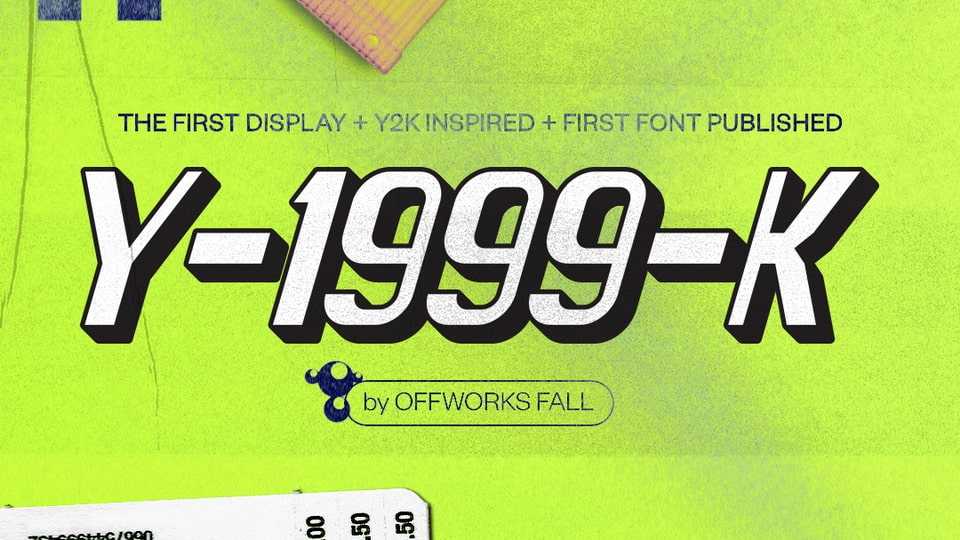
Download Y-1999-K font, the Y2K-inspired typeface that brings you to the future. Y-1999-K designed after many retro futuristic Japanese PS1 Game such as Jet Set Radio and the iconic East German Team called Union Berlin.
Designer: Naufal Muhammad Haiqal